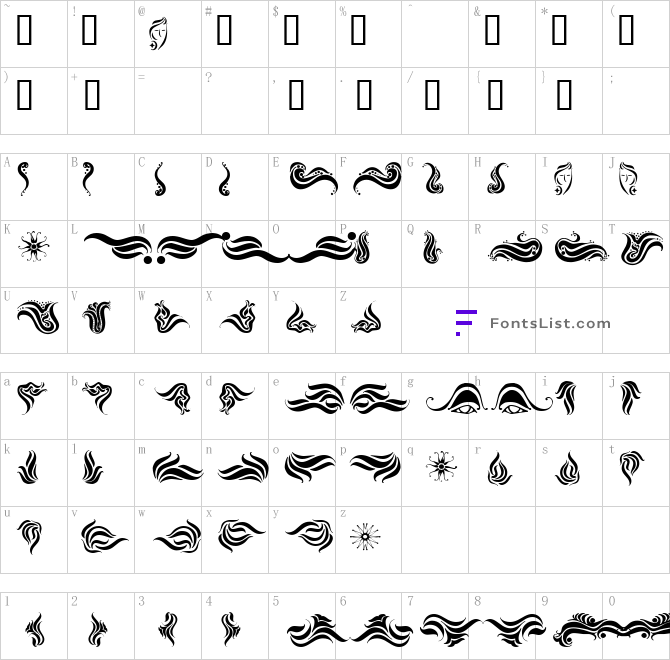
- Font Name:Absinth Flourishes II
Absinth-Flourishes-II.ttf is a very beautiful artistic font, Absinth-Flourishes-II.ttf is widely used in the design and printing of various books and pictures,Absinth-Flourishes-II.ttf has a strong visual impact,Absinth-Flourishes-II.ttf is a commonly used font in newspapers, magazines and books, and is used in posters, e-commerce Poster design, store design, logo design, font design and other fields.Absinth-Flourishes-II.